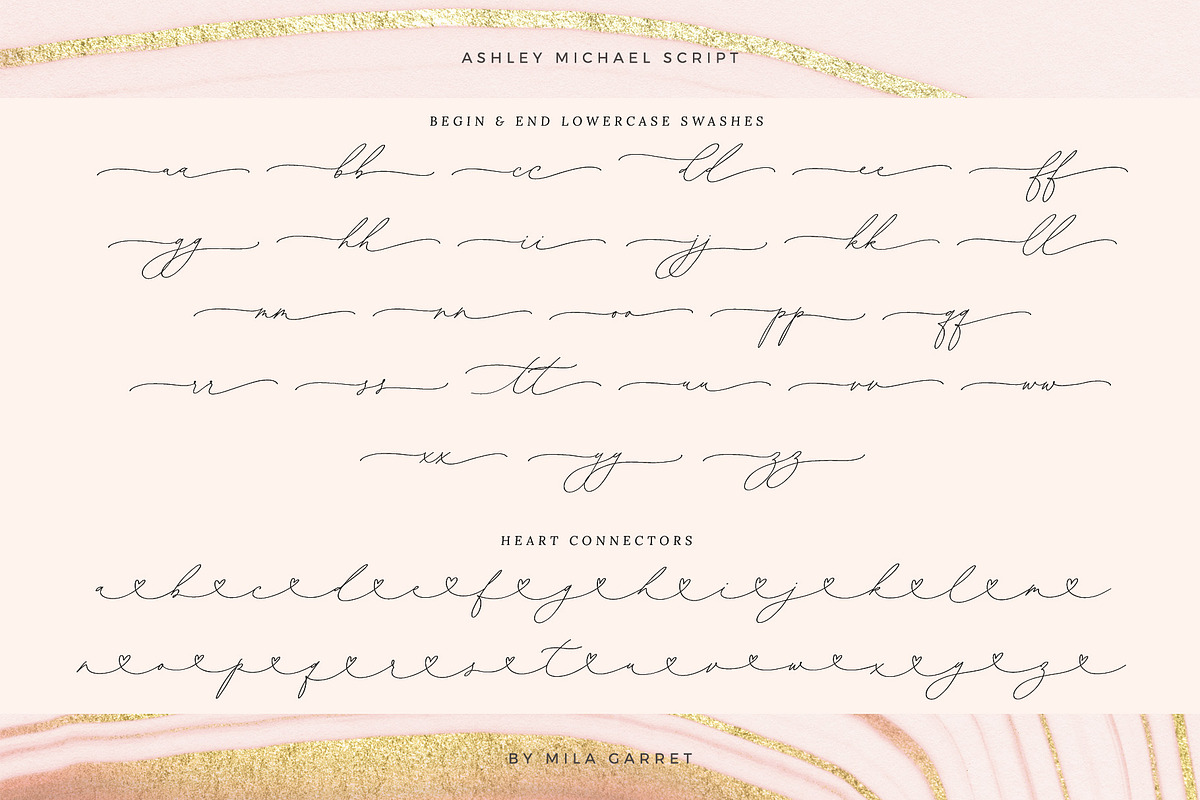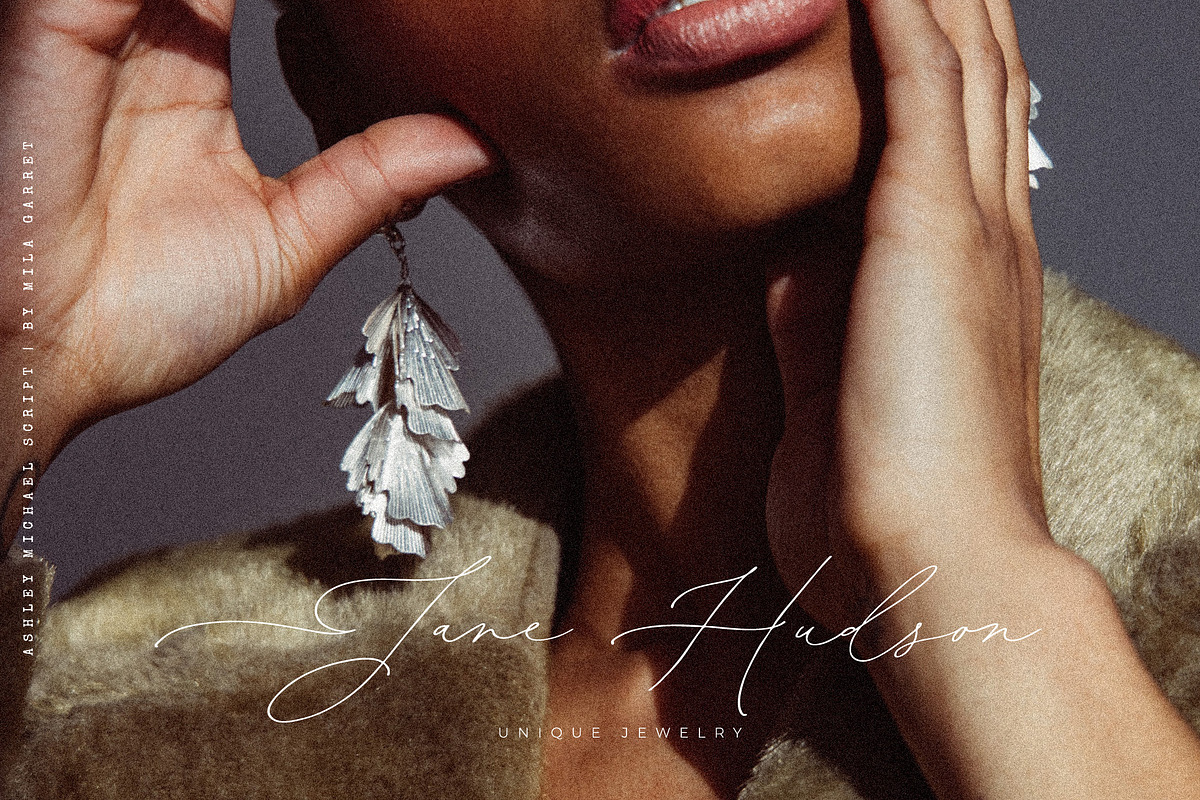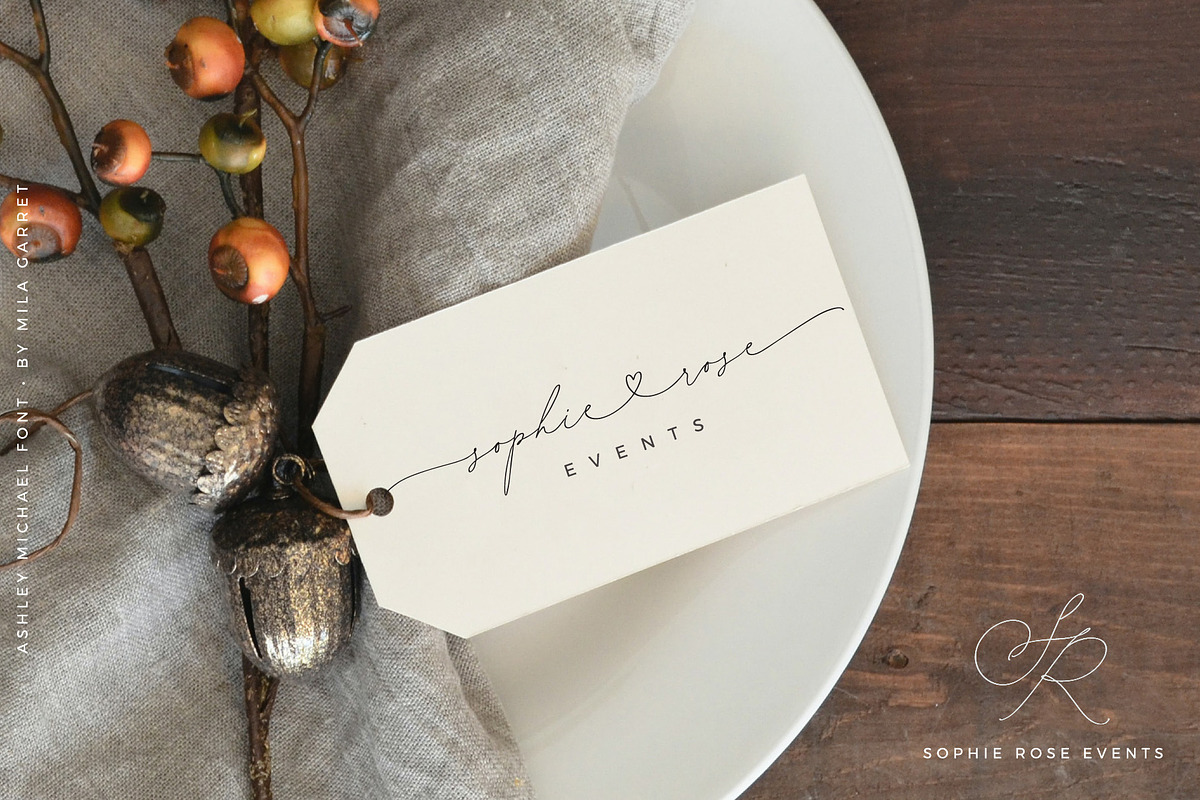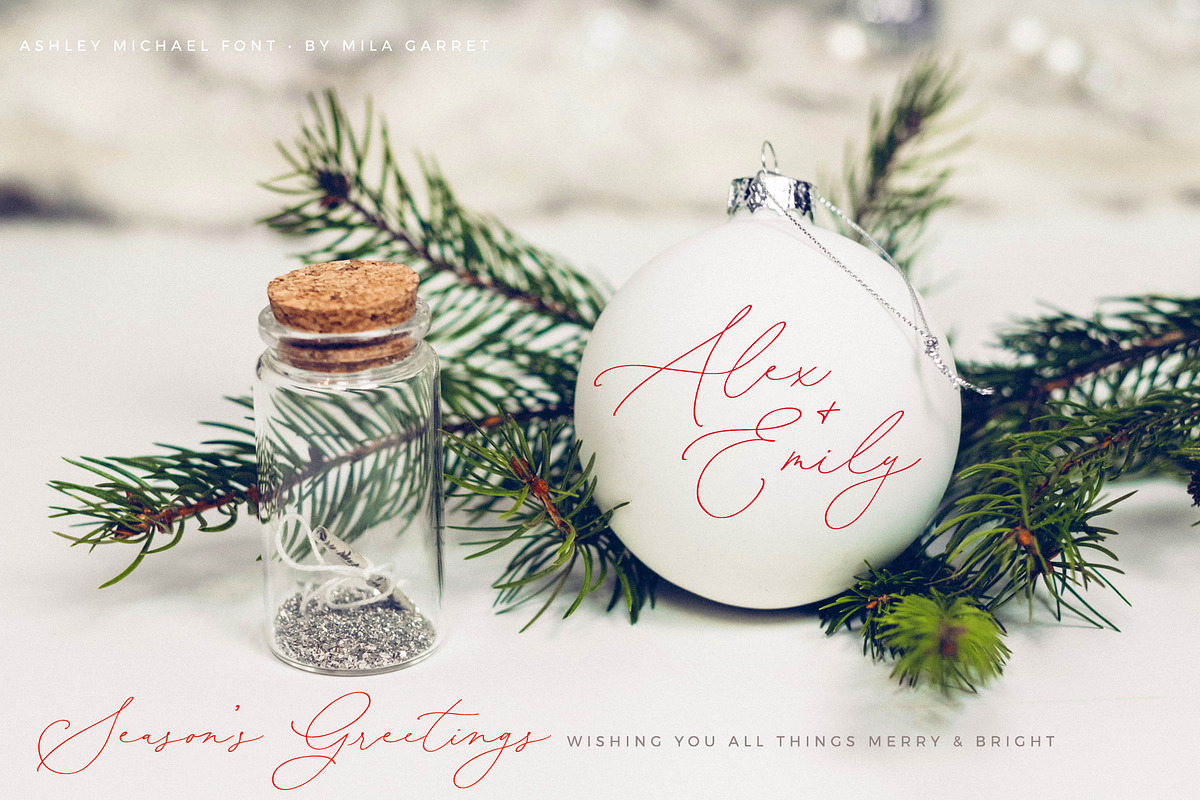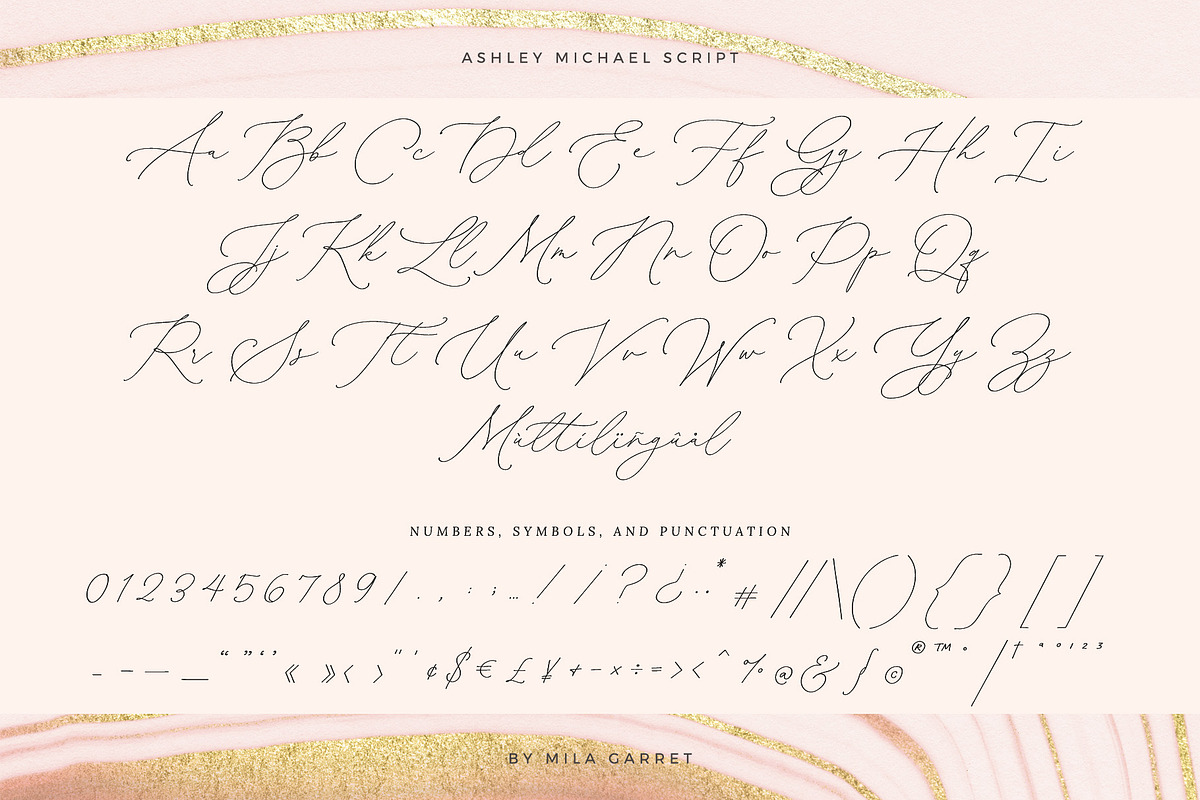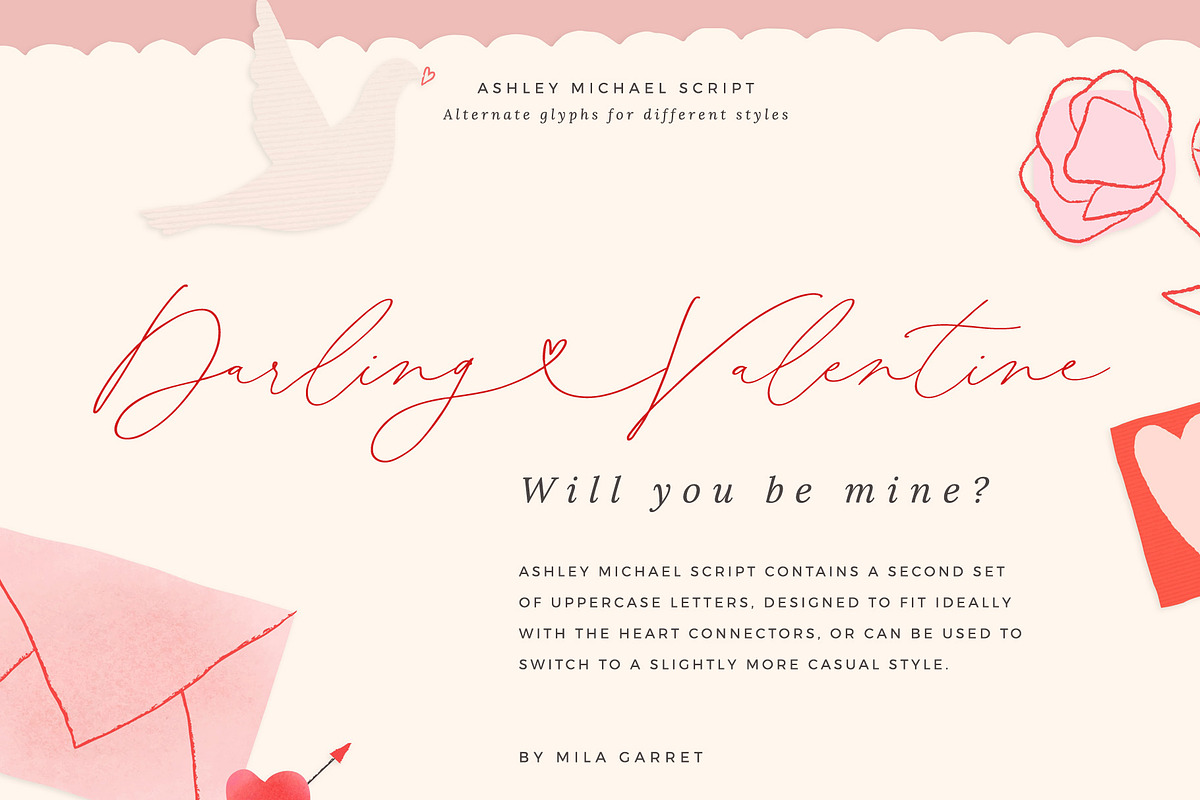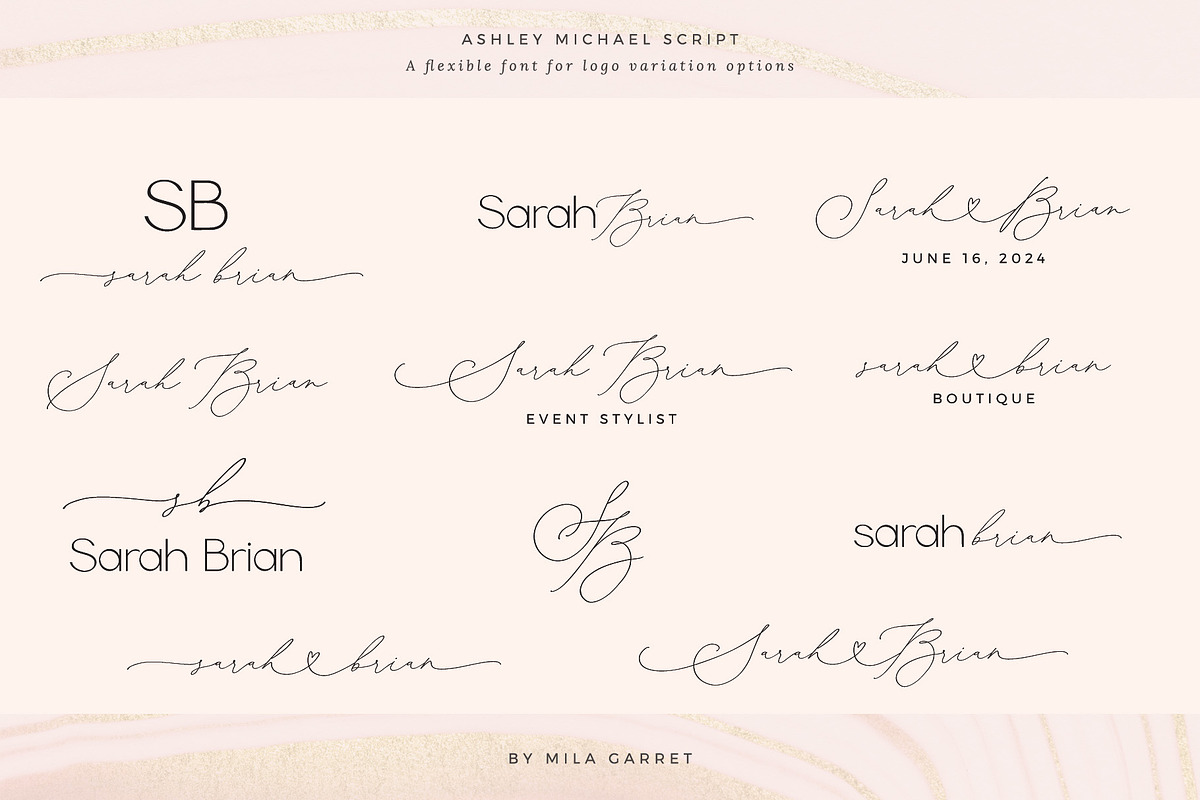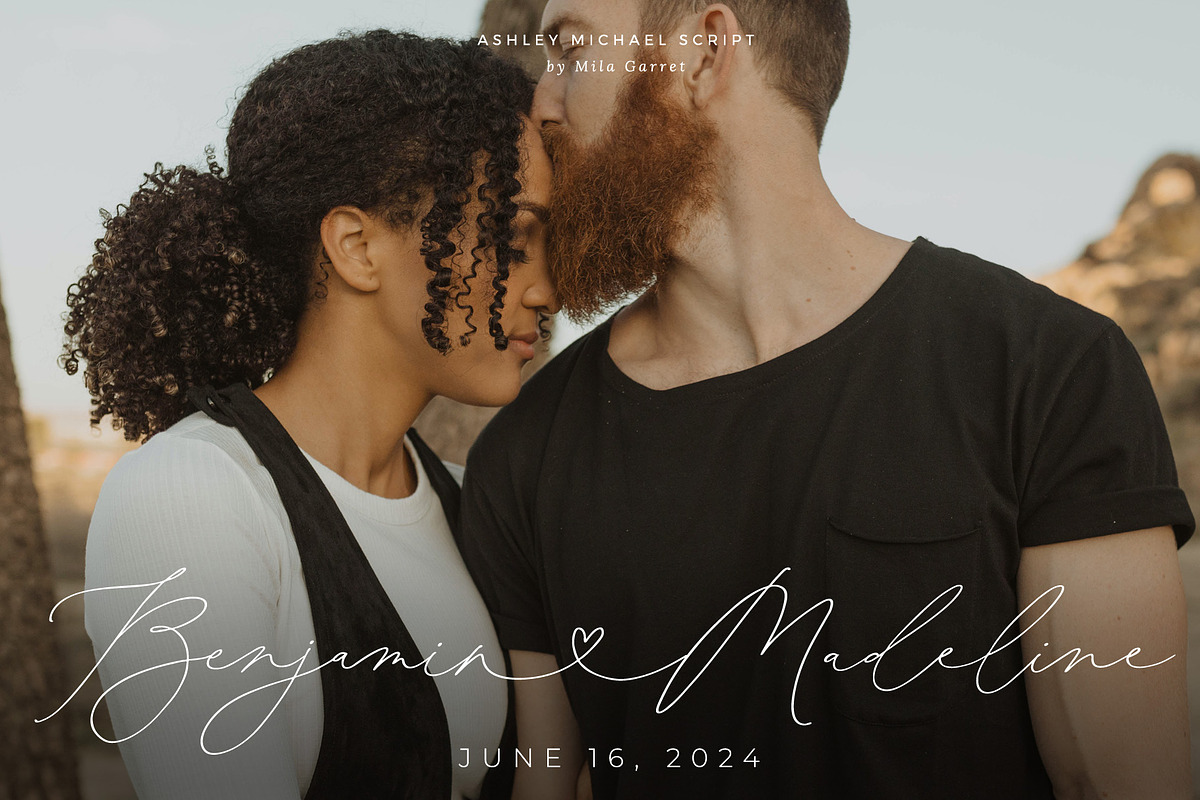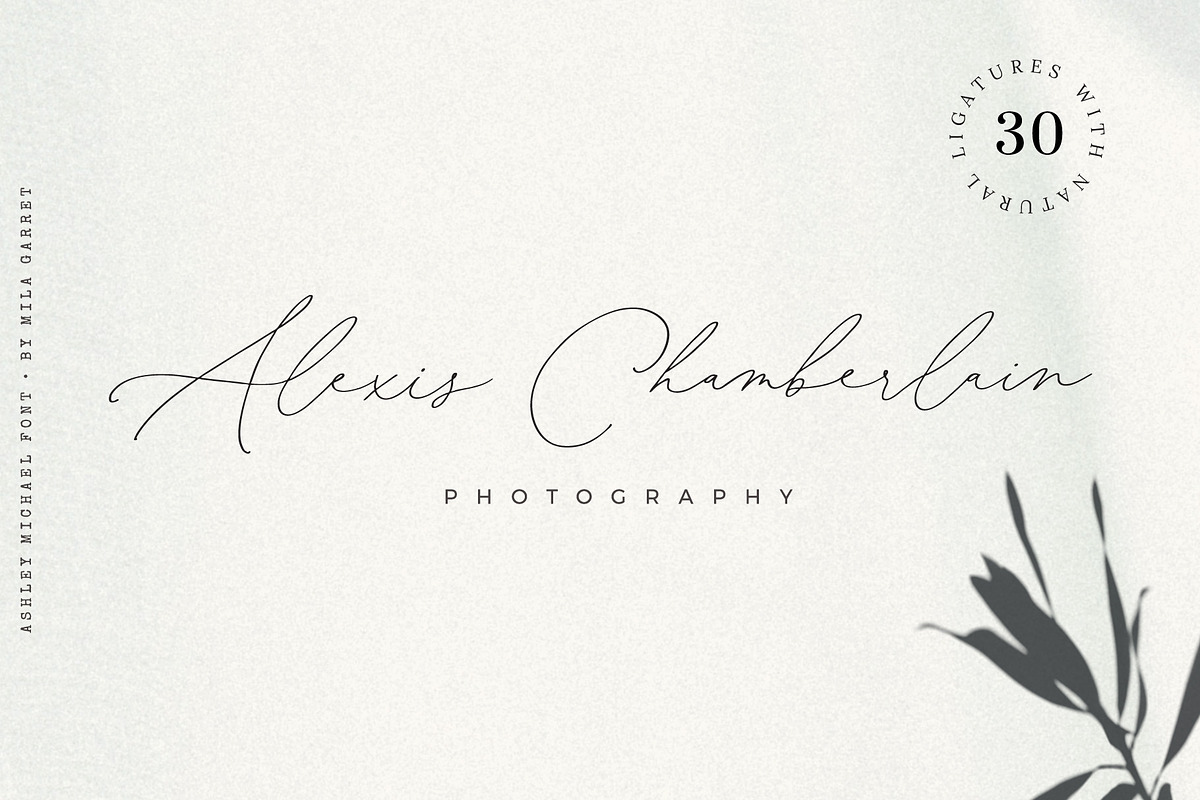
Ashley Michael Heart Wedding Script
Introducing a handwritten calligraphy heart font, Ashley Michael, a lovely and elegant script font designed for signature logos, wedding invitations, custom branding, websites, social media and more! Just in time for Valentine's Day, it's perfect for couple names or anything that needs a delicate and romantic touch.
Packed full of alternates - included with Ashley Michael font is a full set of beginning and ending lowercase swashes, uppercase alternates, and heart connector swashes to give you variety for logo and name designs.
Ashley Michael Font Features
- Full Set of standard alphabet and punctuation
- Extra set of beginning swashed lowercase
- Extra set of ending swashed lowercase
- Set of lowercase heart connectors (connects to lowercase, uppercase, and uppercase alts)
- Extra stylistic alternates and ligatures
- Multilingual Characters (ÁÂÄÀÅÃÆÇÐÉÊËÈÍÎÏÌÑÓÔÖÒØÕŒÞÚÛÜÙẂŴẄẀÝŶŸỲ áâäàåãæçðéêëèíîïìñóôöòøõœþßúûüùẃŵẅẁýŷÿỳŠšŽž€£¥ªº)